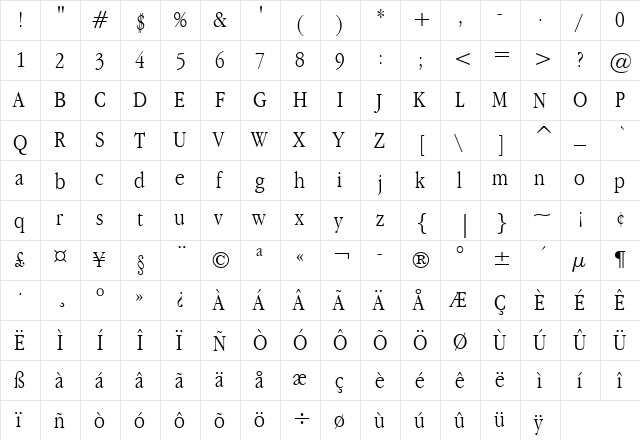
Apple Garamond BT Light
Design Context for Apple Garamond BT Typeface
Apple Garamond BT takes a measured approach to typography — its balanced proportions and neutral character make it a reliable workhorse for both digital and print work. Its slender proportions lend an understated elegance to any composition.